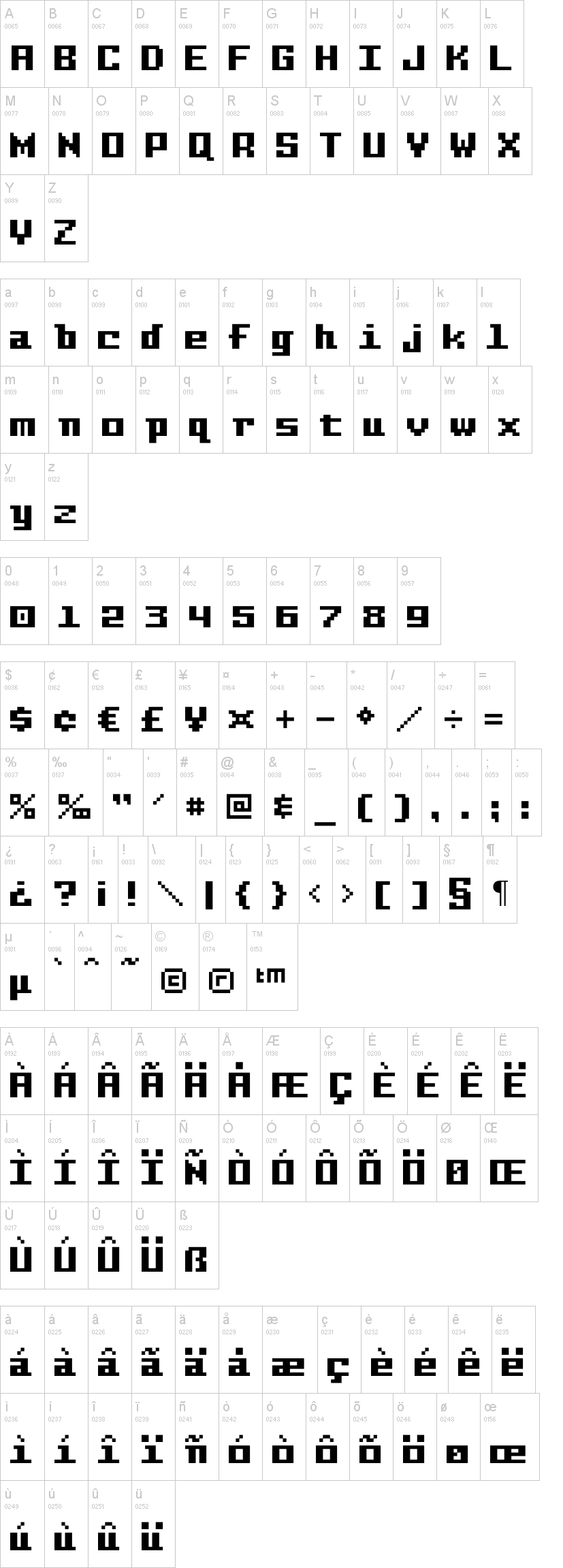
Note of the authorThis font is based on the default pixel-face from the classic Mattel Electronics Intellivision title screens. Includes full alphanumeric, punctuation, extended accent characters, and Euro.